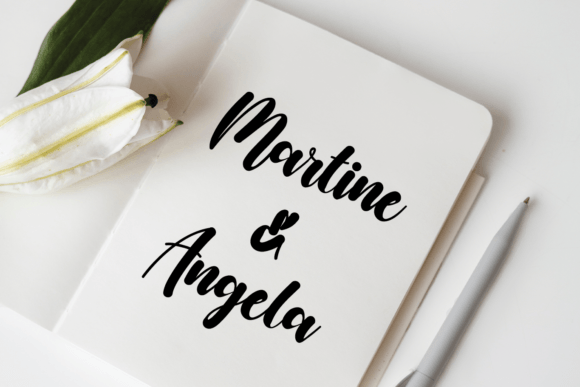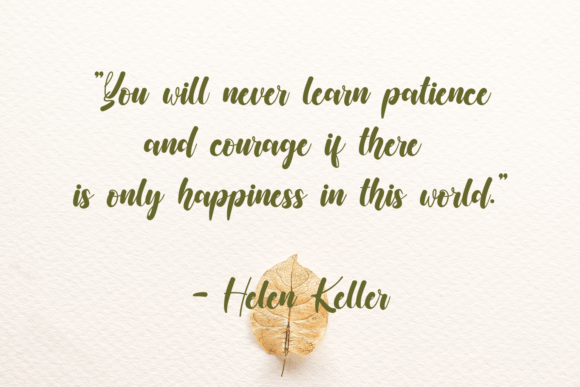
About Yoshua Font
Yoshua, with its exquisite handwritten style, stands as a testament to meticulous design, destined to become a cherished favorite. This font seamlessly marries classic calligraphic influences with a contemporary and fresh aesthetic, creating a harmonious balance that captures the essence of timeless elegance and modern flair.
As you delve into Yoshua, you’ll discover a font that not only retains a touch of class but also exudes a sense of sophistication that aligns with the latest design trends. Its calligraphic roots add a graceful and fluid quality to each letter, creating a visual rhythm that is both pleasing and captivating.
Prepare to fall in love with Yoshua as it effortlessly elevates your projects to the highest levels of aesthetic appeal. Whether you’re working on branding materials, invitations, or any design endeavor, Yoshua’s versatility shines through. It adapts seamlessly to various contexts, breathing life into your creative vision and imbuing it with a distinctive character.
Embrace the opportunity to infuse your projects with the charm of Yoshua. Let it be the secret weapon that transforms your designs, making them memorable and captivating. Elevate your creative expression with this masterfully crafted font, where the allure of handwritten elegance meets the pulse of contemporary design. Yoshua is not just a font; it’s an invitation to explore the pinnacle of visual expression in your creative journey.